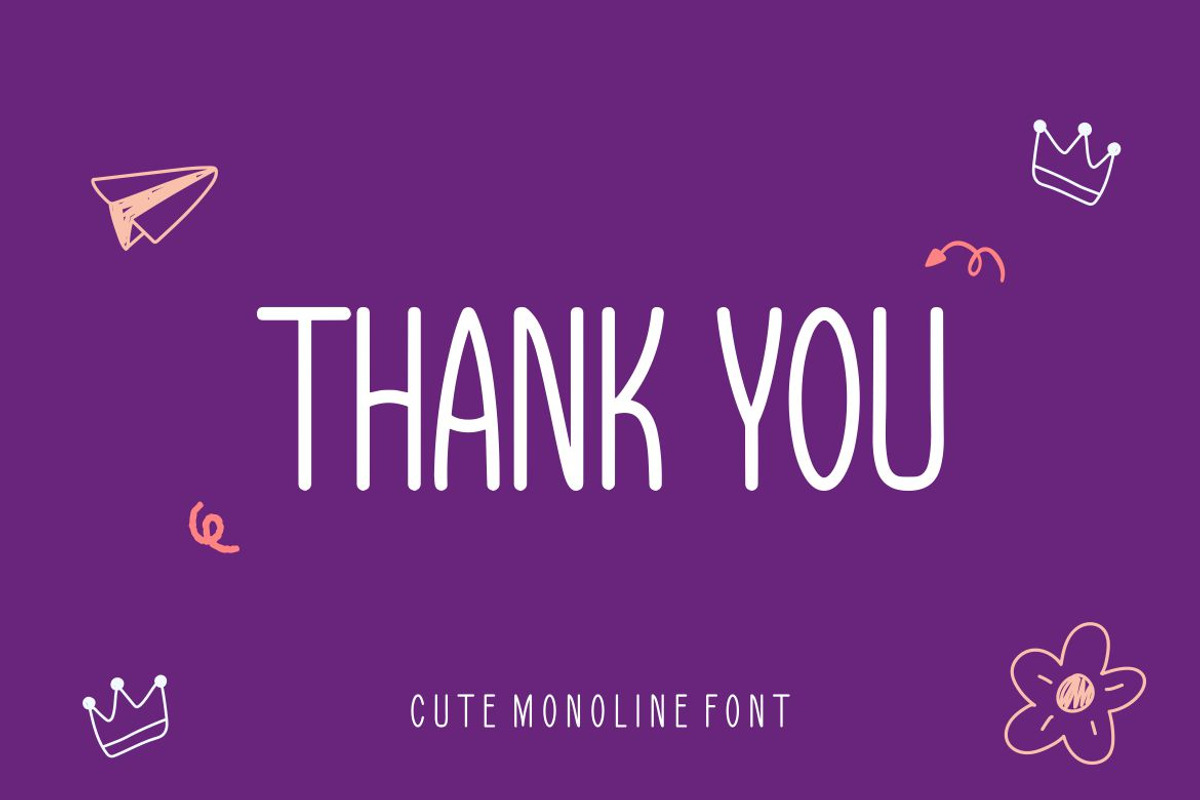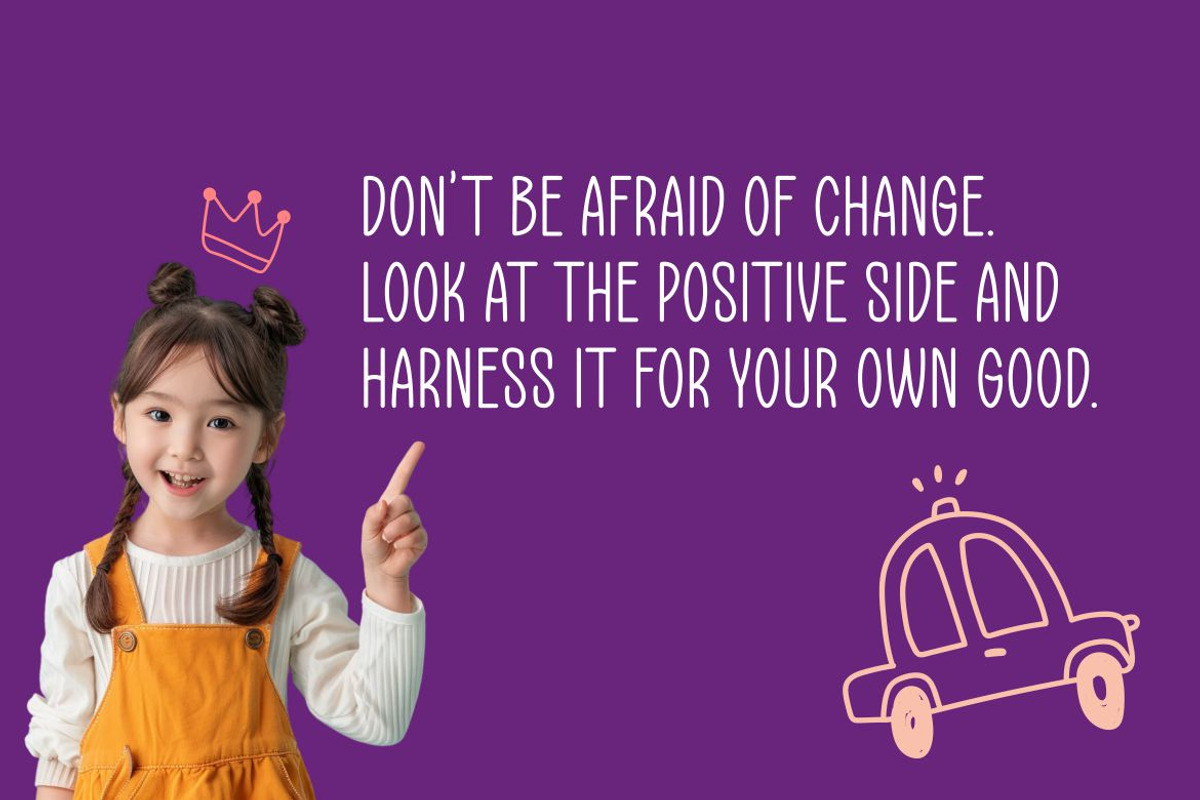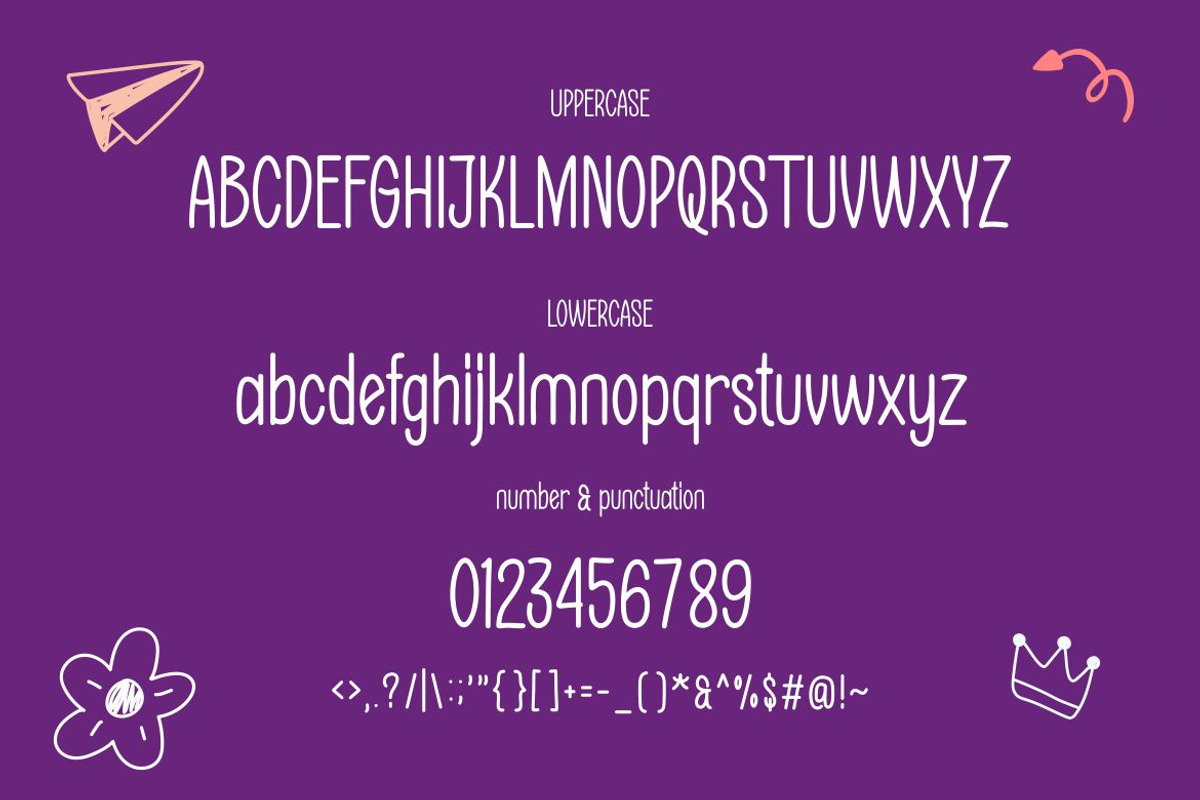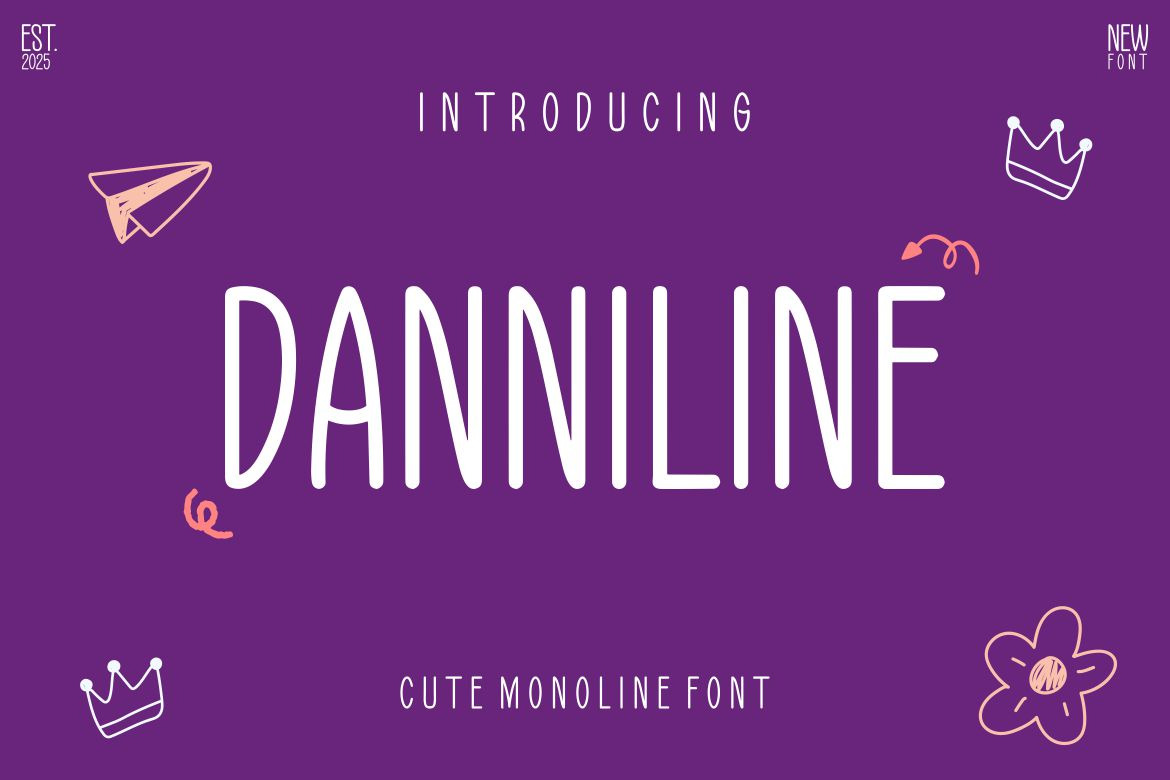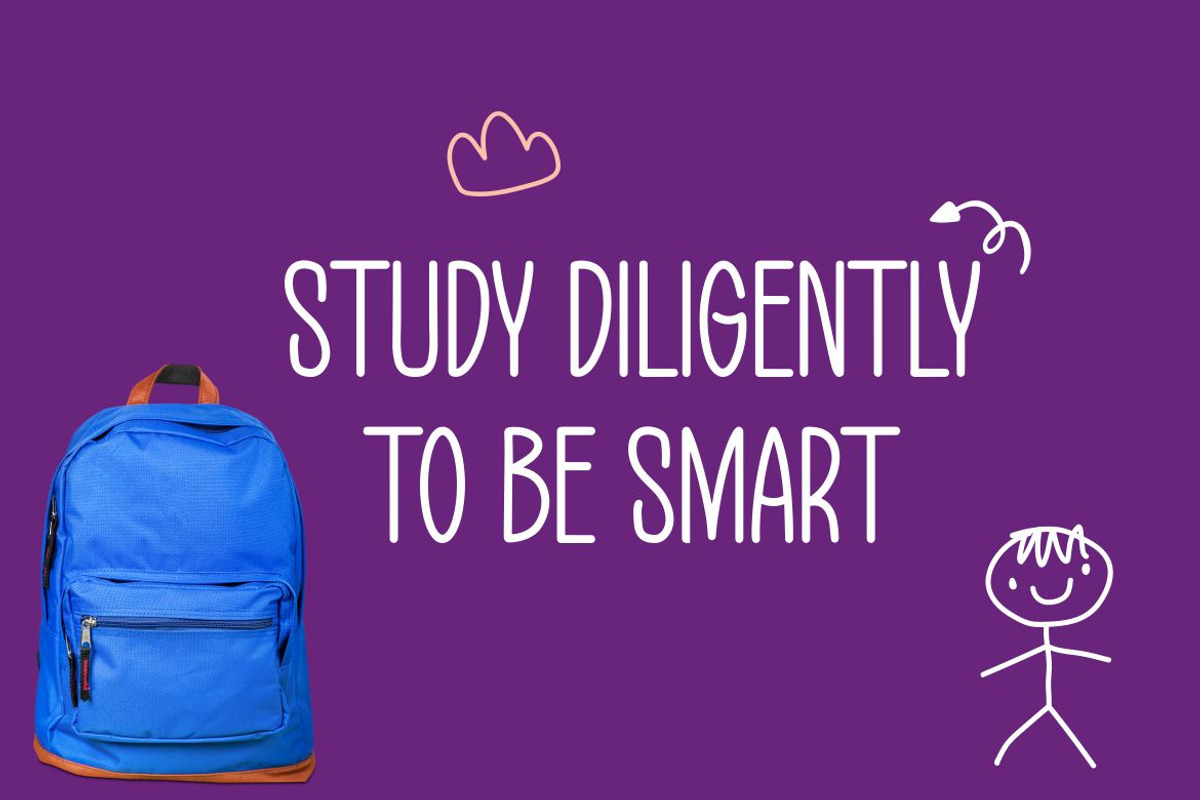
Danniline - Monoline Font
Introducing Danniline , a cool and elegant Monoline Font. Elegant font feel. This font gives you a beautiful and modern atmosphere. suitable for posters, book covers, cards, merchandise, etc.